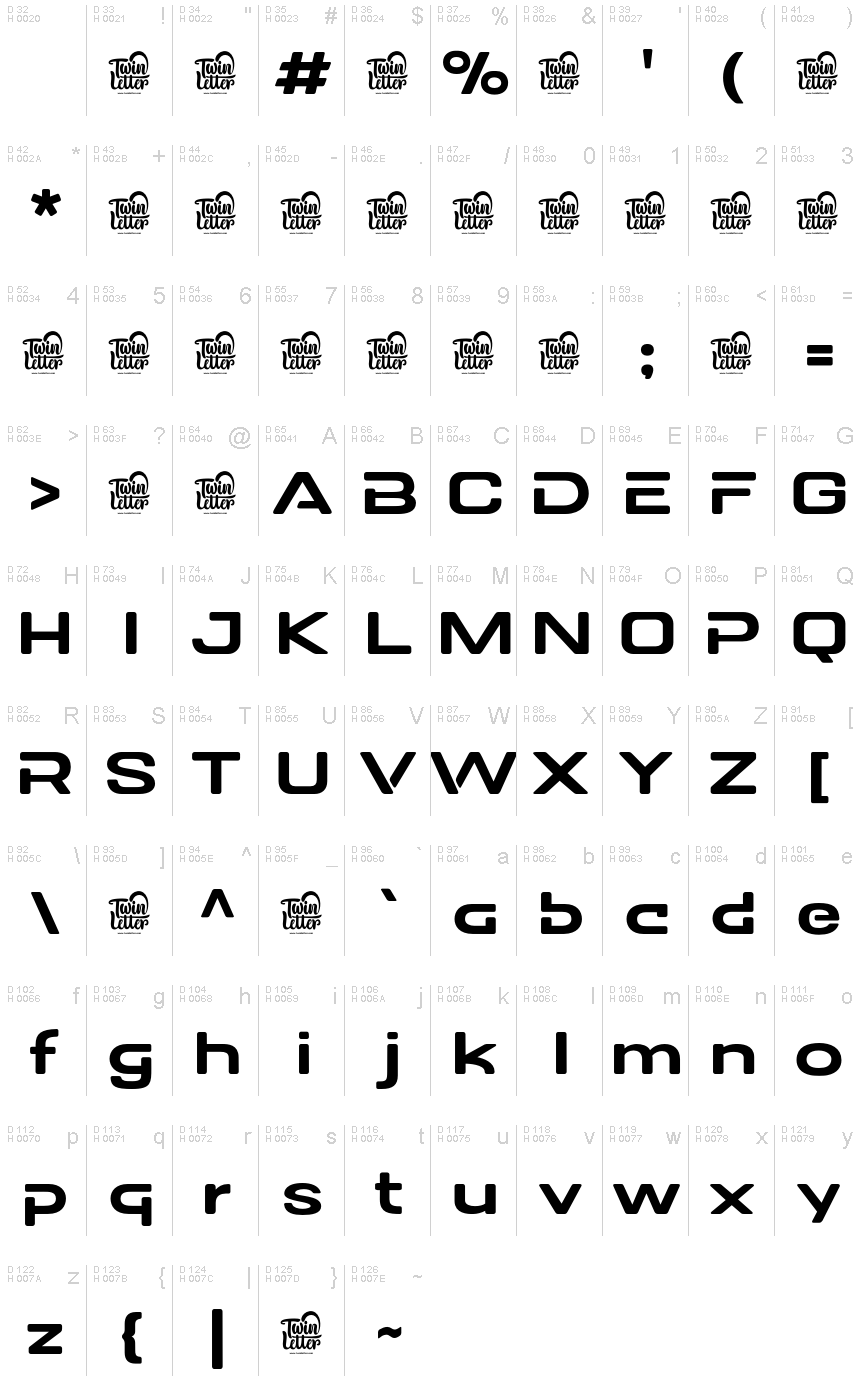
Dovens, designed by Twinletter, is a display font that exudes a contemporary techno vibe with an expanded form. The typeface's distinct and luxurious feel is crafted to imbue your designs with sophistication. With 18 versatile styles, Dovens stands out for its unique anatomy that optimizes both beauty and personality. Whether it's for impactful titles, engaging text in large paragraphs, eye-catching logos, dynamic posters or any graphic that demands attention-Dovens delivers.
This typeface collection isn't just about aesthetics; it's about creating a memorable presence in any design project it graces.
DOVENS